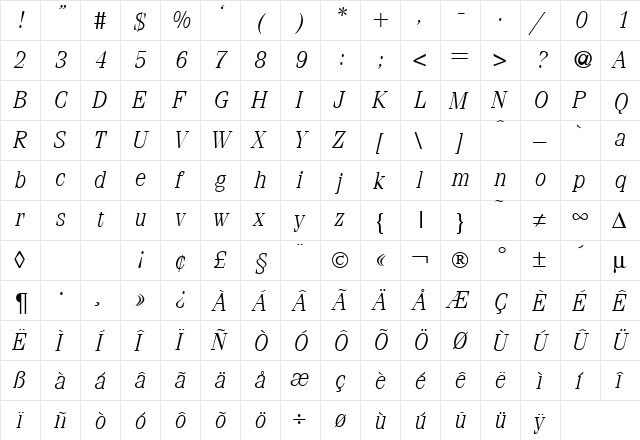
FerventLight RegularItalic Font Preview
FerventLight RegularItalic
Design Context for FerventLight Typeface
FerventLight offers clean, dependable letterforms without strong stylistic allegiance, making it a practical choice for designers who need flexibility. The dynamic lean of this cut emphasises speed and emphasis in any layout. Its slender proportions lend an understated elegance to any composition.
Pro Tip: Use FerventLight for emphasis, pull quotes, and subheadings where its slanted energy can add rhythm to the layout.